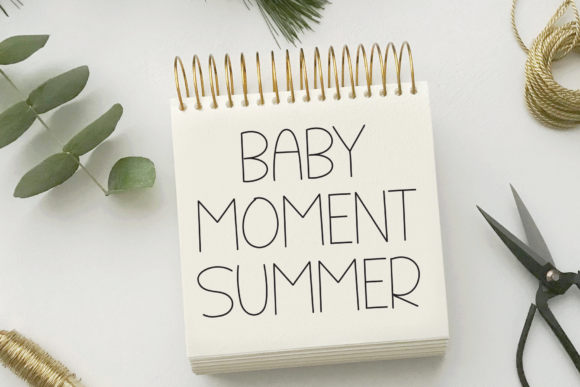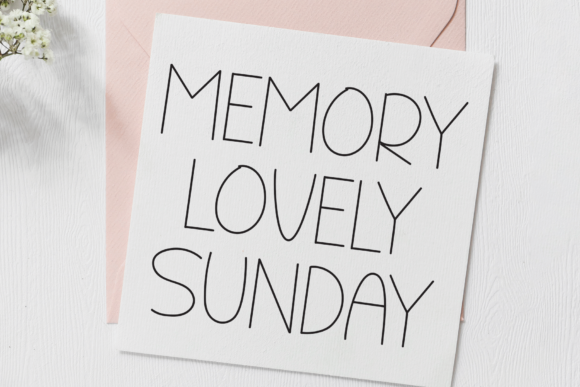
Minimalest Font
db-ku.com - Script & Handwritten -- Minimalest is a simple, tall, and playful handwritten font. Fall in love with its ravishing style, and use it to create beautiful designs.